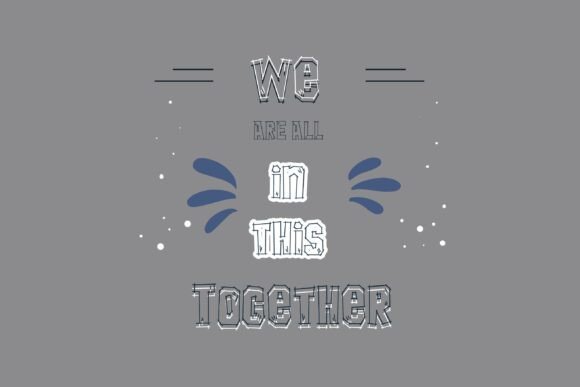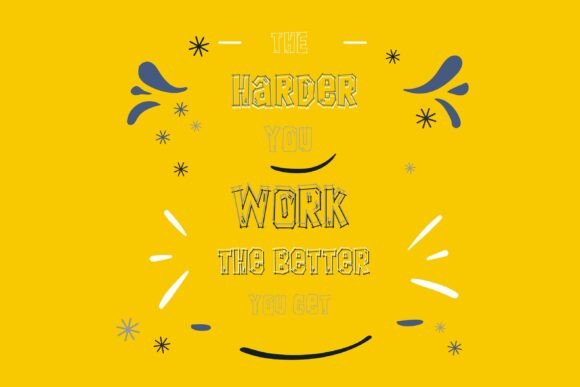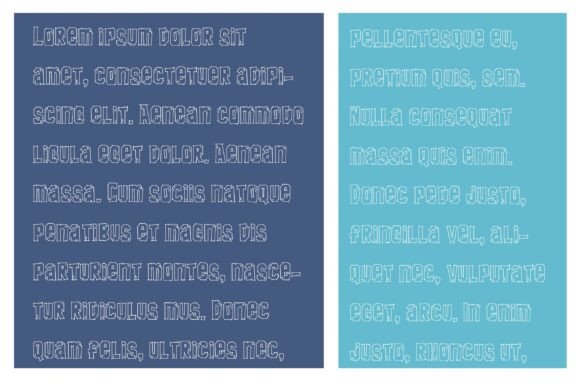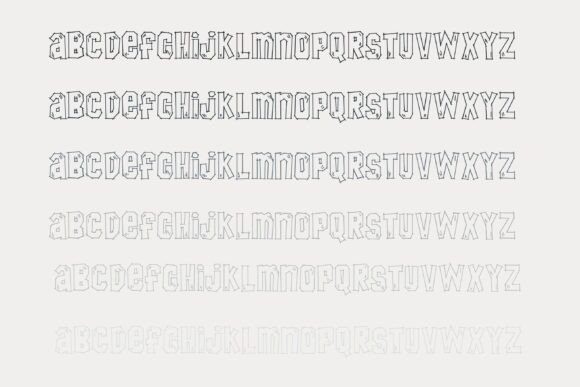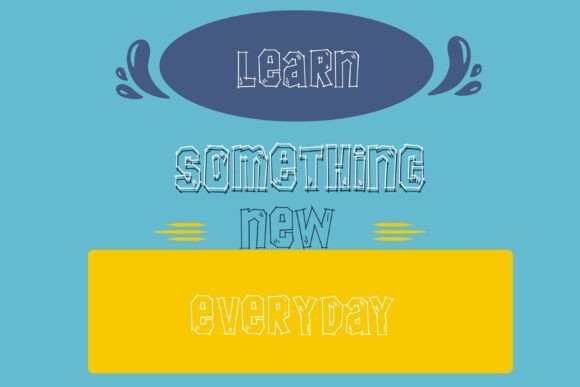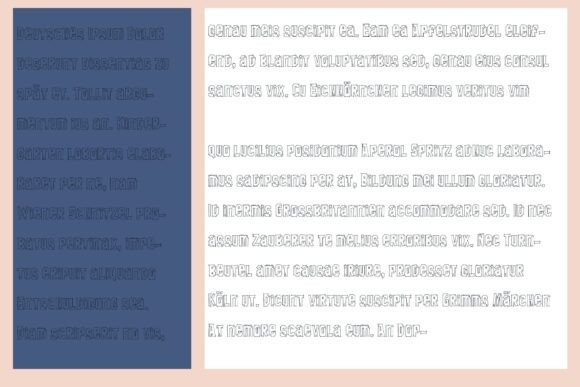
Discover the Charm of Draft Day Font: A Hand-Crafted, Sketchy, Boxy Typeface
Are you a designer or crafter looking for a unique and eye-catching font to add a personal touch to your projects? Look no further than the Draft Day Font, a hand-crafted, sketchy, boxy font that is sure to capture the attention of your audience. In this article, we’ll explore the characteristics of this one-of-a-kind font, its uses, and why it’s a must-have for any creative looking to add a dash of personality to their work.
A hand-crafted font, also known as a handwritten font, is a typeface that is designed to mimic the look and feel of handwriting. It’s a font that is created to look like it was written by hand, with all the imperfections and quirks that come with it. Hand-crafted fonts can range from formal and elegant to informal and playful, making them versatile and suitable for a wide range of applications.
The Unique Characteristics of Draft Day Font
Draft Day Font is a sketchy, boxy font with square-like doodled lettering. Its hand-crafted design gives it a distinctive, homemade feel that is perfect for adding a personal touch to invitations, greeting cards, and other creative projects. The font’s boxy, doodled letters have a charming, imperfect quality that makes it look like it was drawn by hand.
Uses of Draft Day Font
Draft Day Font is a versatile typeface that can be used for a variety of purposes. Here are some ideas to get you started:
- Invitations and Greeting Cards: Add a personal touch to your invitations and greeting cards with Draft Day Font. Its hand-crafted design makes it perfect for special occasions like weddings, birthdays, and holidays.
- DIY Projects: If you’re a crafter or DIY enthusiast, Draft Day Font is a great choice for your projects. Use it to add a personal touch to your handmade crafts, such as jewelry, candles, or soap.
- Signage and Posters: Draft Day Font is also great for creating eye-catching signage and posters. Its bold, boxy letters make it easy to read and understand, even from a distance.
- Digital Media: Use Draft Day Font in your digital media, such as social media graphics, blog posts, and email newsletters. Its unique design will help your content stand out and grab the attention of your audience.
Why Choose Draft Day Font?
So why choose Draft Day Font over other typefaces? Here are a few reasons:
- Unique Design: Draft Day Font has a one-of-a-kind design that will set your projects apart from the rest. Its hand-crafted, sketchy letters have a distinctive look that is sure to capture the attention of your audience.
- Versatility: Draft Day Font is a versatile typeface that can be used for a wide range of applications. Whether you’re creating invitations, signage, or digital media, this font is a great choice.
- Easy to Read: Despite its hand-crafted design, Draft Day Font is easy to read and understand. Its boxy letters make it perfect for headlines, titles, and other applications where you want to grab the attention of your audience.
Draft Day Font is a hand-crafted, sketchy, boxy font that is perfect for designers and crafters looking to add a personal touch to their projects. Its unique design, versatility, and ease of use make it a great choice for a wide range of applications. Whether you’re creating invitations, signage, or digital media, Draft Day Font is sure to capture the attention of your audience and set your projects apart from the rest.